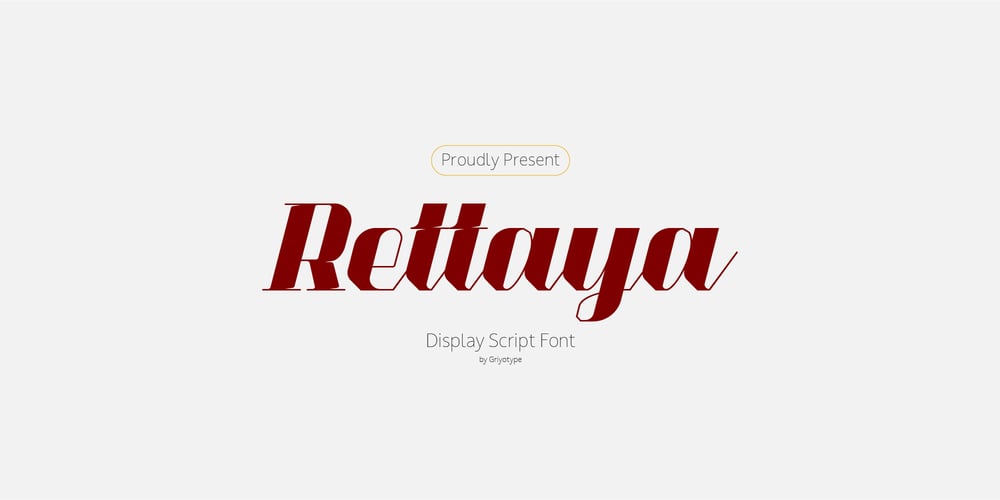
Rettaya Font Family was designed by Aprian Sembada and published by Griyotype. Rettaya contains 1 styles and family package options. Rettaya is a cool, bold display font. It will elevate a wide range of crafting ideas, from cards, to branding, labels and much more.